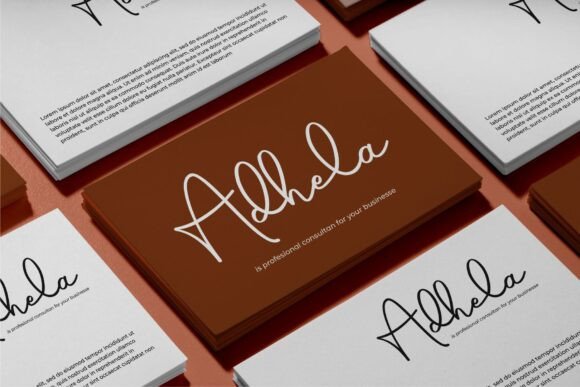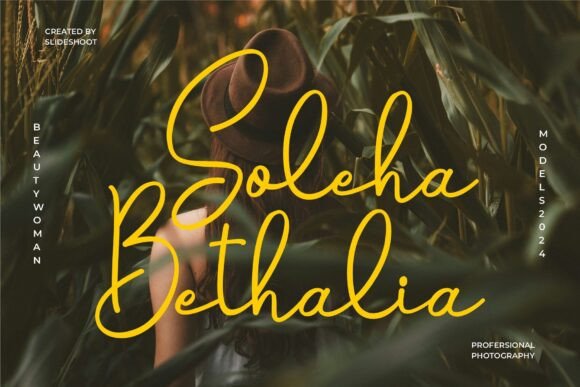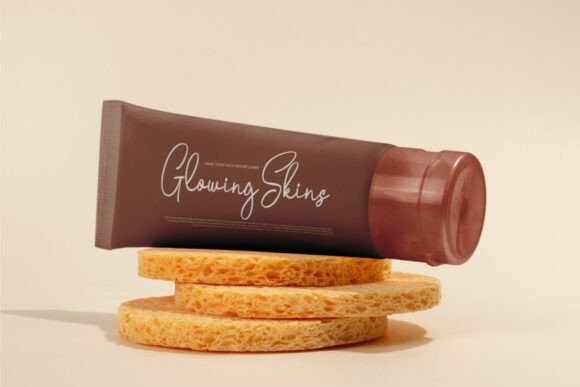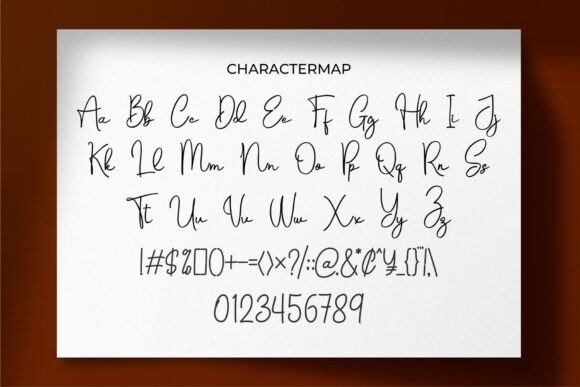
Fathila Henderson Font: Elevate Your Designs with Elegance
In the realm of typography, few fonts manage to capture the essence of elegance and sophistication as effectively as the Fathila Henderson Font. This stunning, flowing handwritten font has been making waves in the design community, and for good reason. With its incredibly distinct and timeless style, Fathila Henderson is the perfect addition to any designer’s toolkit.
The Characteristics of Fathila Henderson Font
Fathila Henderson is described by its elegant touch, which sets it apart from more generic fonts. Its flowing lines and curves give it a dynamic, organic feel that is both visually appealing and highly versatile. This font is not just a means of communication; it’s an expression of style and sophistication.
Why Designers and Crafters Love Fathila Henderson
Designers and crafters fall in love with Fathila Henderson for its unique characteristics and the way it can elevate their projects. Here are a few reasons why:
- Elegance and Sophistication: Fathila Henderson brings an air of elegance and sophistication to any project. Whether you’re working on a branding project, a wedding invitation, or a packaging design, this font adds a touch of class.
- Versatility: The font’s versatility is one of its most appealing features. It can be used in a variety of contexts, from digital platforms to print materials, making it a valuable asset for any designer.
- Timeless Appeal: Unlike trends that come and go, Fathila Henderson has a timeless quality to it. Its classic elegance ensures that your designs will remain stylish and relevant for years to come.
- Distinctiveness: In a sea of generic fonts, Fathila Henderson stands out. Its unique style ensures that your designs will catch the eye and leave a lasting impression.
Using Fathila Henderson in Your Projects
Incorporating Fathila Henderson into your designs is easier than you might think. Here are a few ideas to get you started:
- Branding and Logos: Use Fathila Henderson to create a logo or brand identity that exudes elegance and sophistication.
- Wedding and Event Invitations: Add a touch of class to your wedding or event invitations with this beautiful font.
- Packaging Design: Elevate your packaging designs with Fathila Henderson, making your products stand out on store shelves.
- Digital and Print Media: Whether you’re working on a website, a brochure, or a magazine, Fathila Henderson can add a level of sophistication to your text.
Tips for Maximizing the Impact of Fathila Henderson
To get the most out of Fathila Henderson, consider the following tips:
- Pair it Wisely: Combine Fathila Henderson with complementary fonts to create visual interest and hierarchy in your designs.
- Experiment with Colors: While the font itself is elegant, experimenting with different colors can further enhance its beauty and adapt it to your project’s needs.
- Pay Attention to Spacing: The flowing nature of Fathila Henderson means that spacing is crucial. Ensure that your text is well-spaced to maintain readability and aesthetic appeal.
Fathila Henderson Font is more than just a typeface; it’s a design statement. Its elegant touch, distinct style, and timeless appeal make it an invaluable resource for designers and crafters looking to elevate their projects. Whether you’re aiming for sophistication, elegance, or simply want to create something truly memorable, Fathila Henderson is the perfect choice. So, fall in love with its beauty and let it inspire you to create spectacular designs that stand out from the crowd.